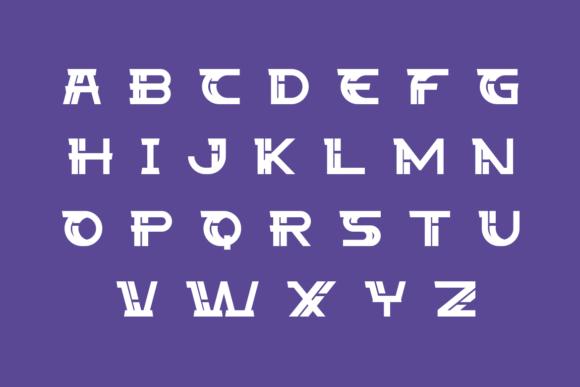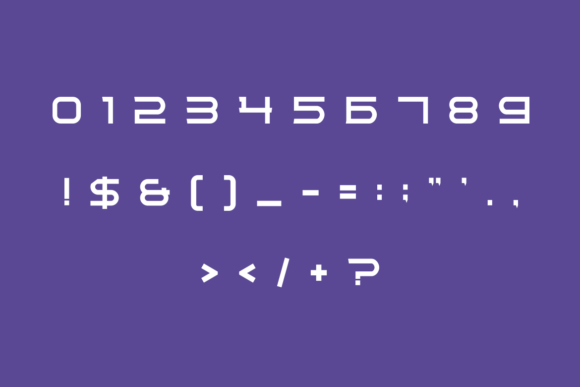
Introduction to Orgap Font
Have you ever been in the midst of a creative project, staring at a blank screen, trying to find the perfect font to bring your idea to life? The struggle is real, but what if I told you there’s a game-changer in the world of typography? Enter the Orgap Font, a modern, bold, and authentic display font that’s about to take your designs to the next level.
Whether you’re a seasoned designer or just starting out, the Orgap Font is an invaluable resource that’s sure to elevate your creative projects. Its versatility makes it suitable for a wide range of applications, from logos and t-shirts to esports branding and beyond. And the best part? It’s available for free download, making it an accessible design resource for anyone looking to add a touch of high-quality style to their work.
- High-quality font with a unique, creative design, perfect for various projects and designs.
- Unique characteristics include its modern, minimalist aesthetic and versatile use in logos, branding, and creative projects.
Honest Review: Orgap Font
As a designer, I’m always on the lookout for high-quality design resources to elevate my creative projects. Recently, I stumbled upon the Orgap Font, and I’m excited to share my thoughts on this versatile font.
- ✨ High-quality typography: The Orgap Font boasts crisp, clean lines and a sophisticated feel that’s perfect for professional projects.
- ✨ Wide character set: This font includes a comprehensive set of characters, including international symbols and punctuation marks.
- ⚠️ Limited font styles: The Orgap Font is primarily a sans-serif font, which might not be ideal for projects that require a more traditional or serif look.
Overall, I’m impressed with the Orgap Font’s high-quality typography and wide character set. While it may have some limitations, it’s an excellent design resource for creatives working on various projects. Whether you’re designing a logo, brochure, or website, the Orgap Font is definitely worth considering.
Common Use Cases for the Orgap Font
The Orgap Font is perfect for a variety of creative projects, including logos, business cards, and social media graphics. Its transparent background and high quality make it ideal for creating visually appealing designs that will stand out from the crowd.